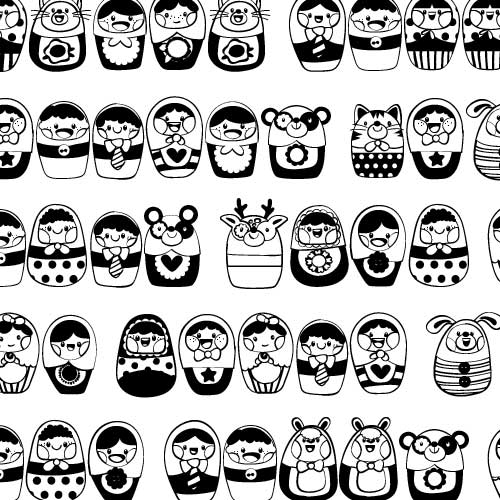
DB Wobblies - DB
This adorable doodlebat font features 26 wobblies characters perfect for cards, crafts, classrooms, parties, scrap book pages, planner stickers, graphics and more!